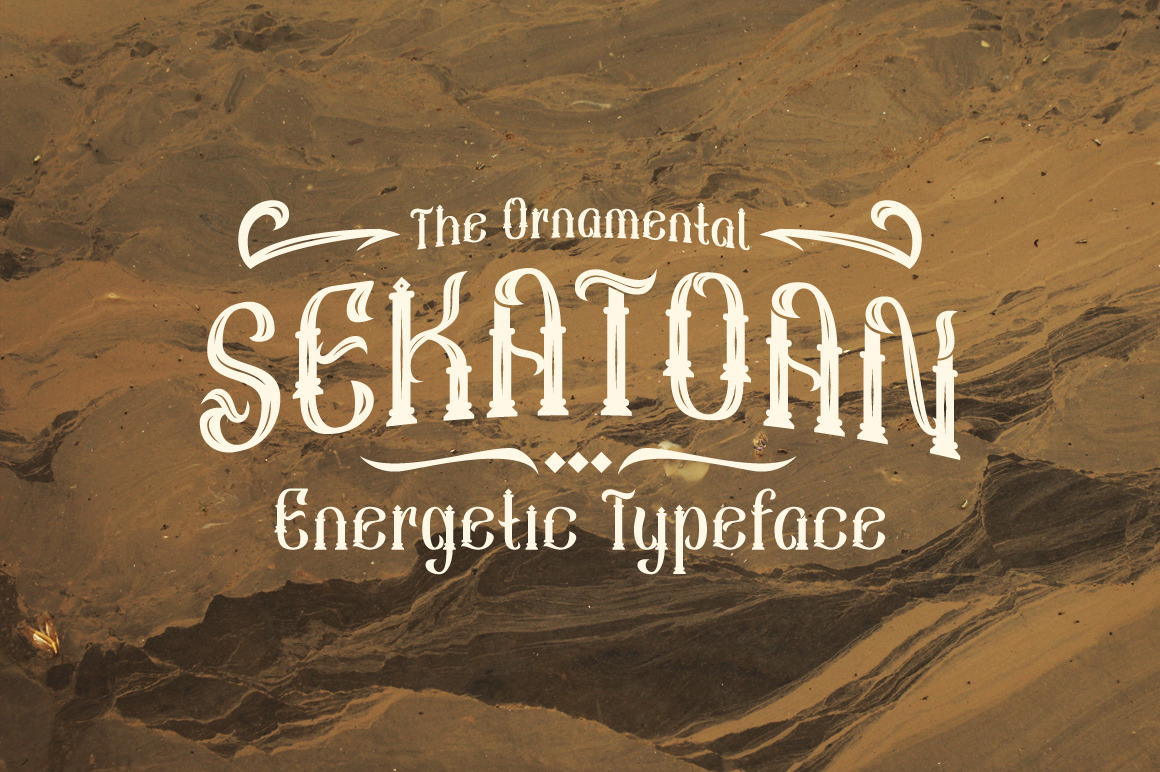
Sekatoan Typeface
Hi! Introducing our new item, named 'Sekatoan' typeface. comes with three styles, clean - inline, inline-shadow. The energetic ornamental typeface that you can use it for your vintage project, traditional style, quotes or headlines. Never get old!
Typeface featured :
- Some punctuations